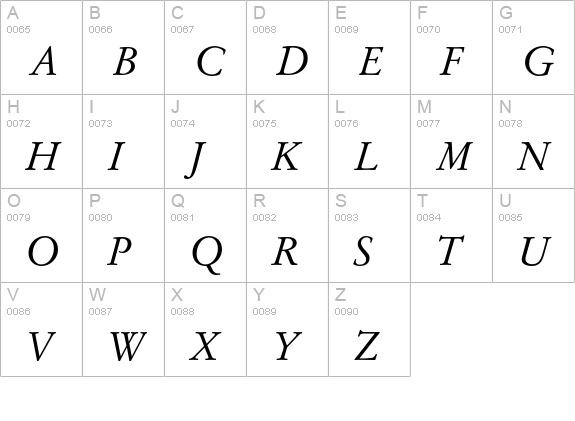
12 pt Stempel Garamond* Italic 13108 Font Details
12 pt Stempel Garamond* Italic 13108 is a distinctive, italic variant in the 12 typeface family \xE2\x80\x94 well suited to design and typography projects.
The 12 pt Stempel Garamond Italic 13108 font is a classic and elegant typeface that exudes sophistication and charm. Its slanted design adds a touch of dynamism to the traditional Garamond style, making it perfect for conveying a sense of elegance and refinement in your designs. This font is ideal for conveying a sense of sophistication in various design projects, from invitations to branding materials. The graceful curves and delicate serifs of Stempel Garamond Italic 13108 make it a versatile choice for both print and digital applications. Best of all, this exquisite font is available for free download at FontsMarket.com, allowing you to add a touch of timeless elegance to your projects without breaking the bank. Download this font today and elevate your designs with the timeless beauty of Stempel Garamond Italic 13108.